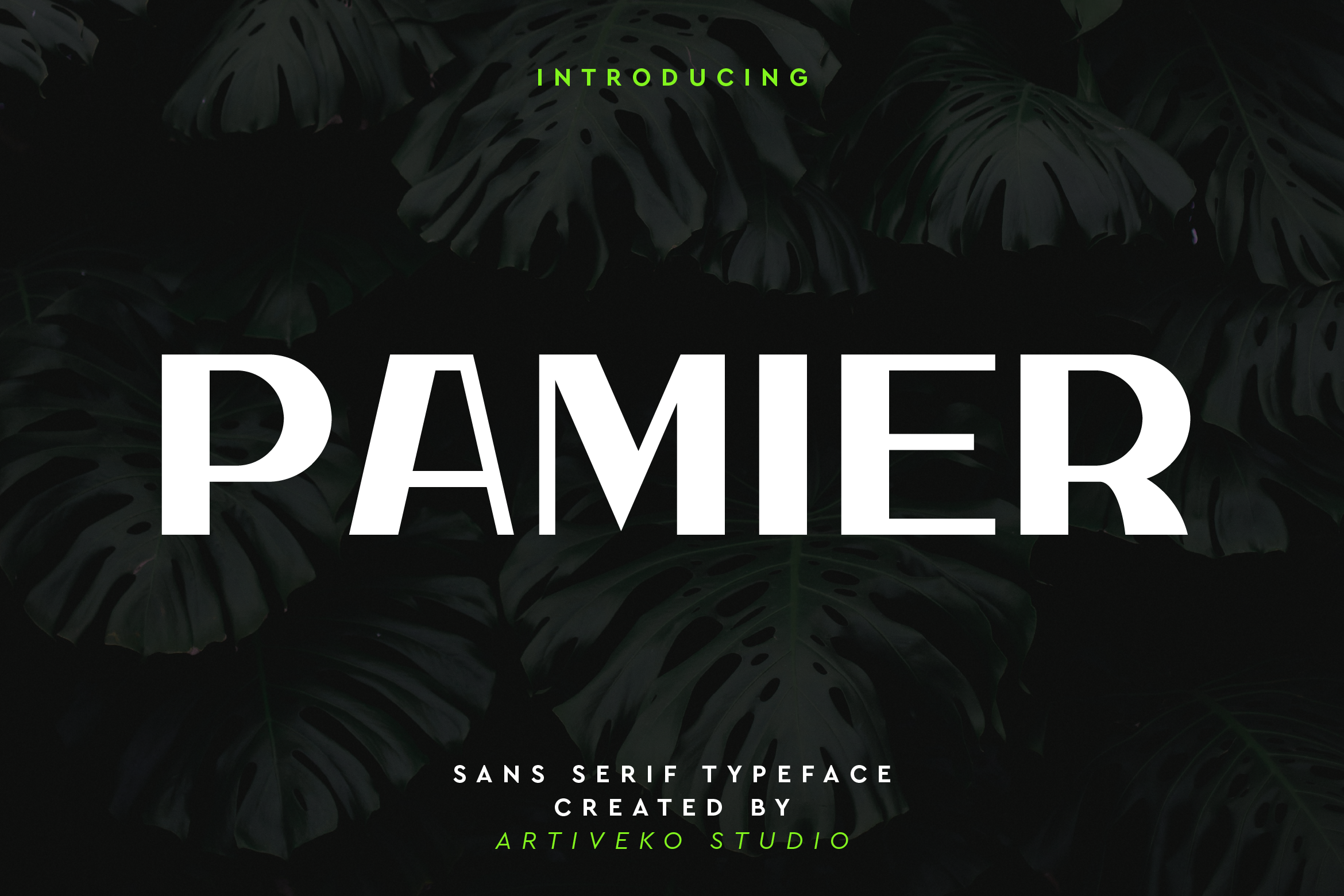
- Pamier Sleek Sans Serif Font
Pamier is a sleek and contemporary sans serif font designed for clean, modern aesthetics. With its balanced proportions, smooth curves, and geometric precision, Pamier is ideal for branding, editorial layouts, packaging, web design, and social media graphics that require sophistication and simplicity.
This font offers exceptional readability while maintaining a minimalist appeal, making it versatile for both bold headlines and elegant body text. Perfect for fashion, lifestyle, tech, and creative industries, Pamier brings clarity and elegance to every project.
The font includes uppercase and lowercase letters, numerals, punctuation, multilingual support, and stylistic alternates for creative flexibility.
Elevate your designs with Pamier — the minimalist sans serif that combines style, precision, and modern functionality.